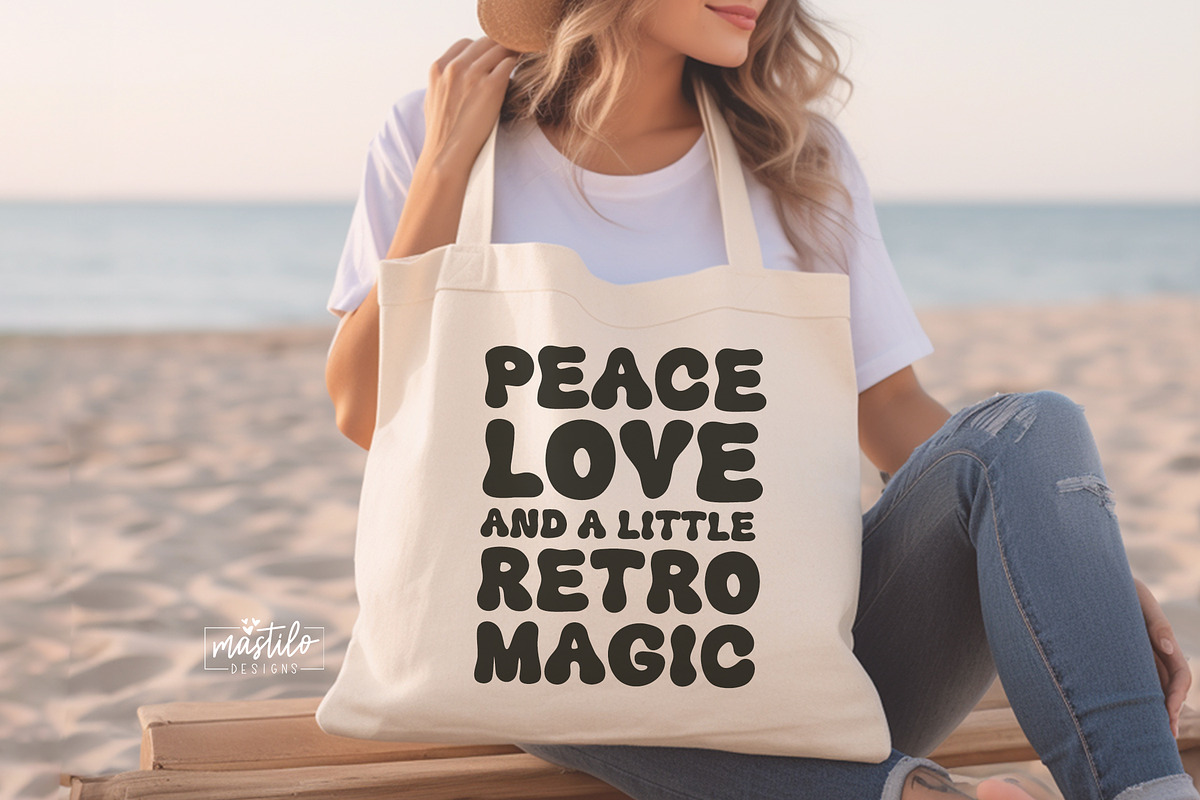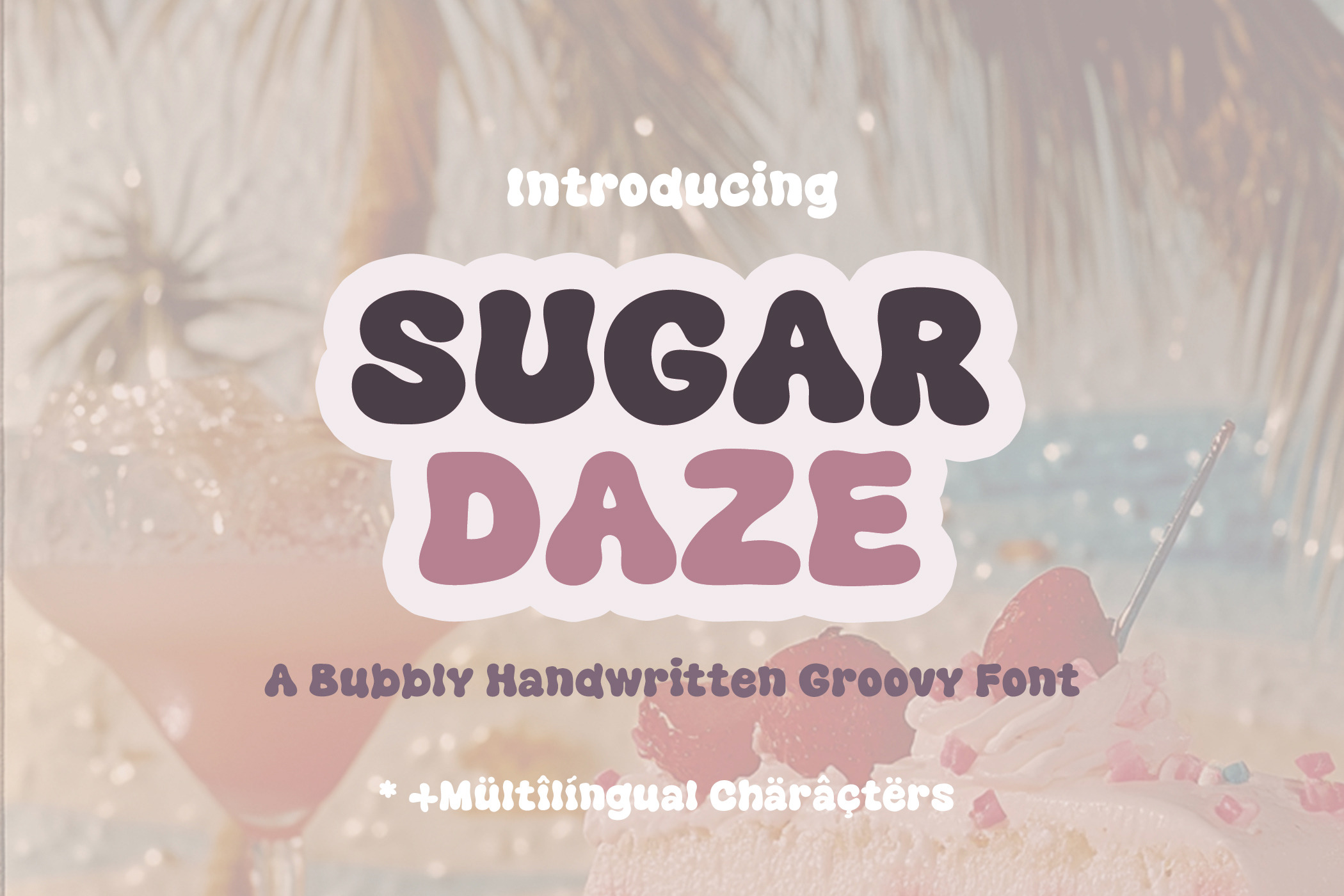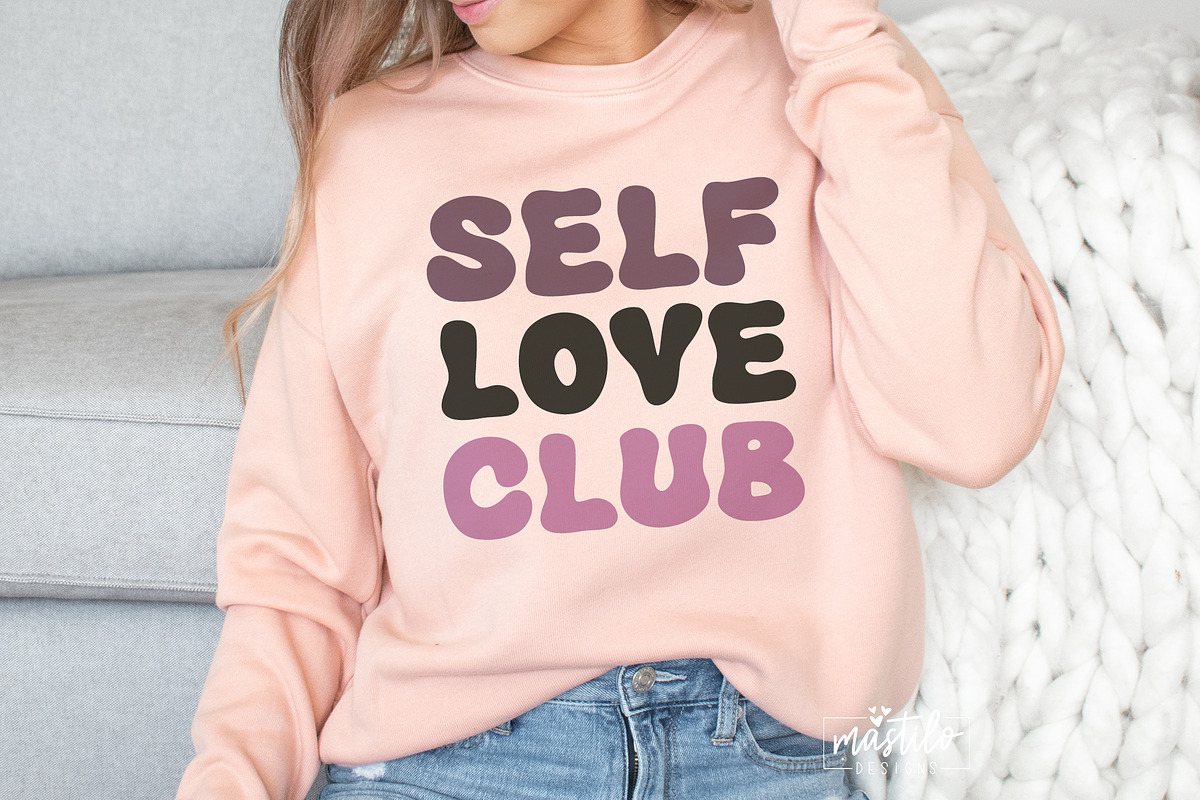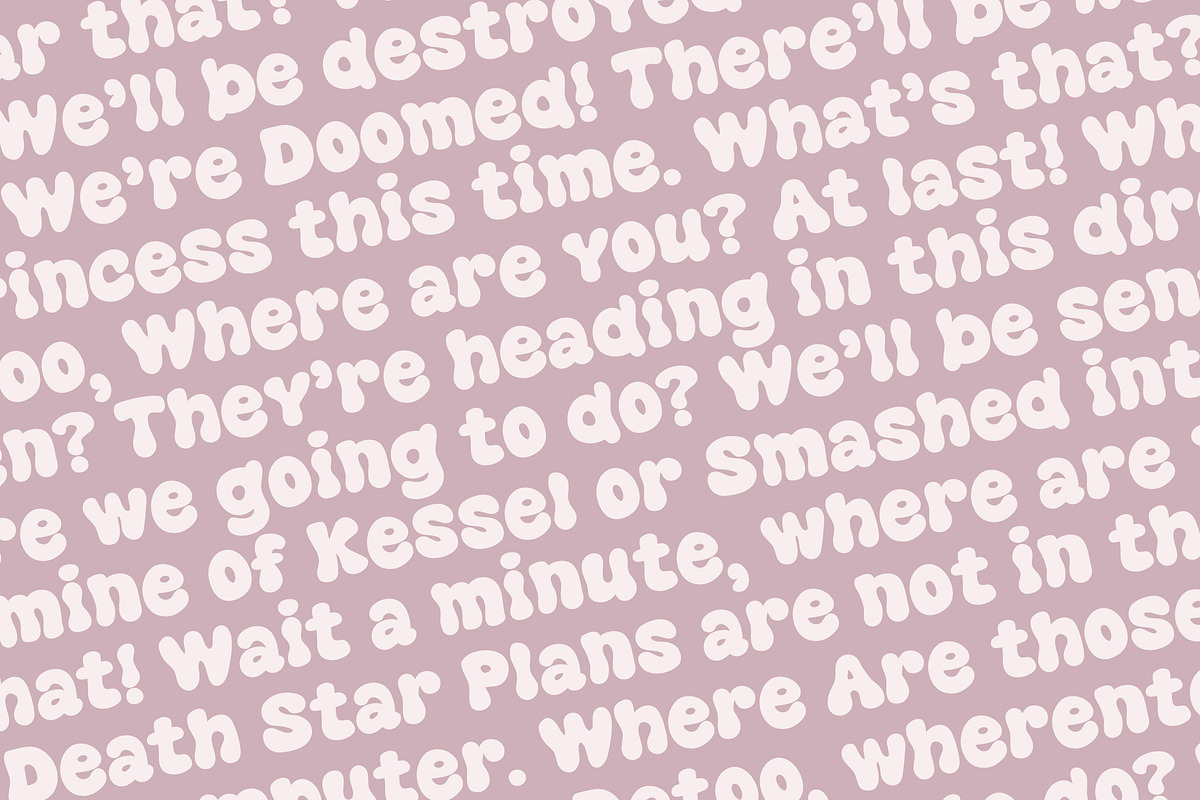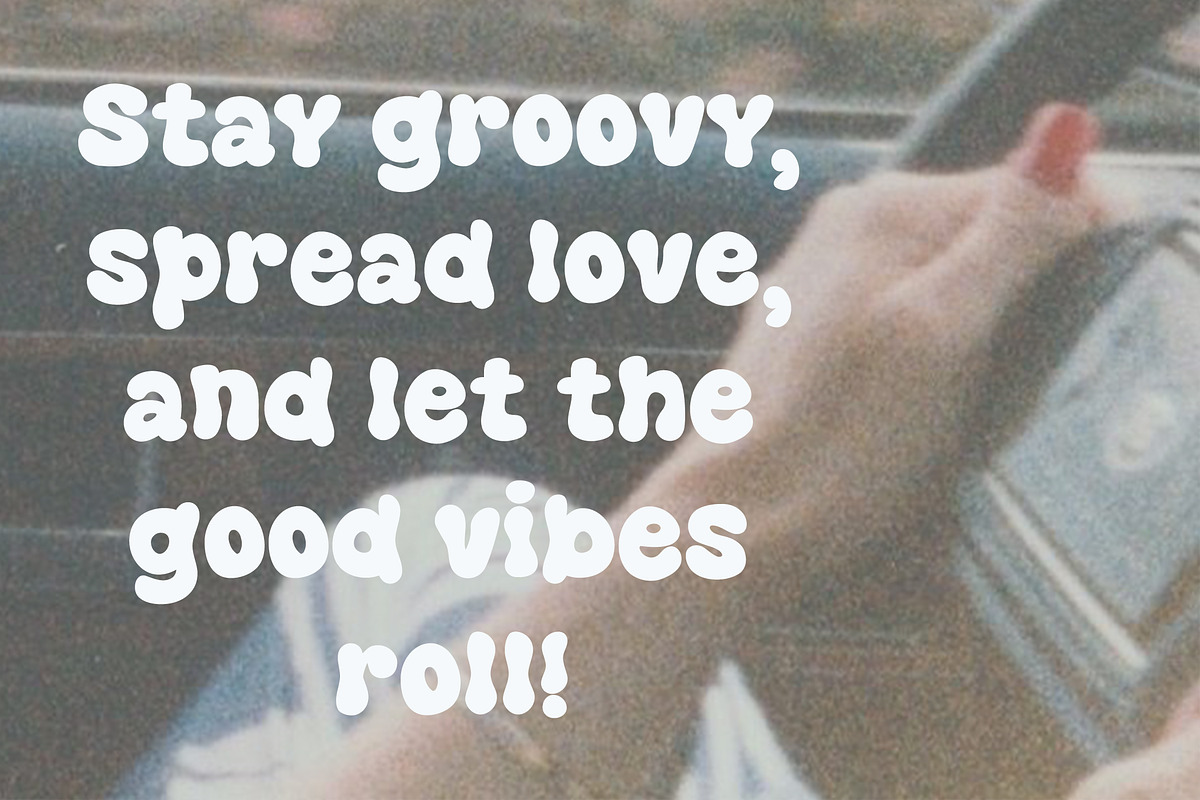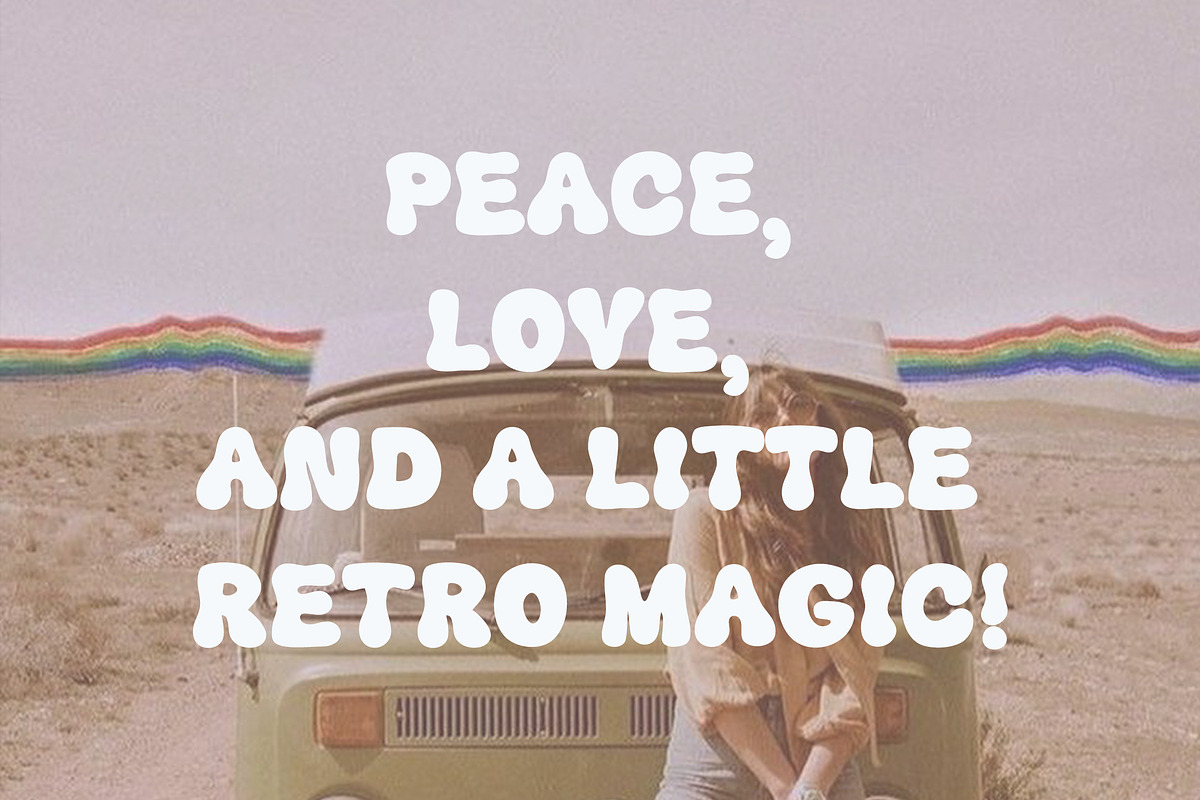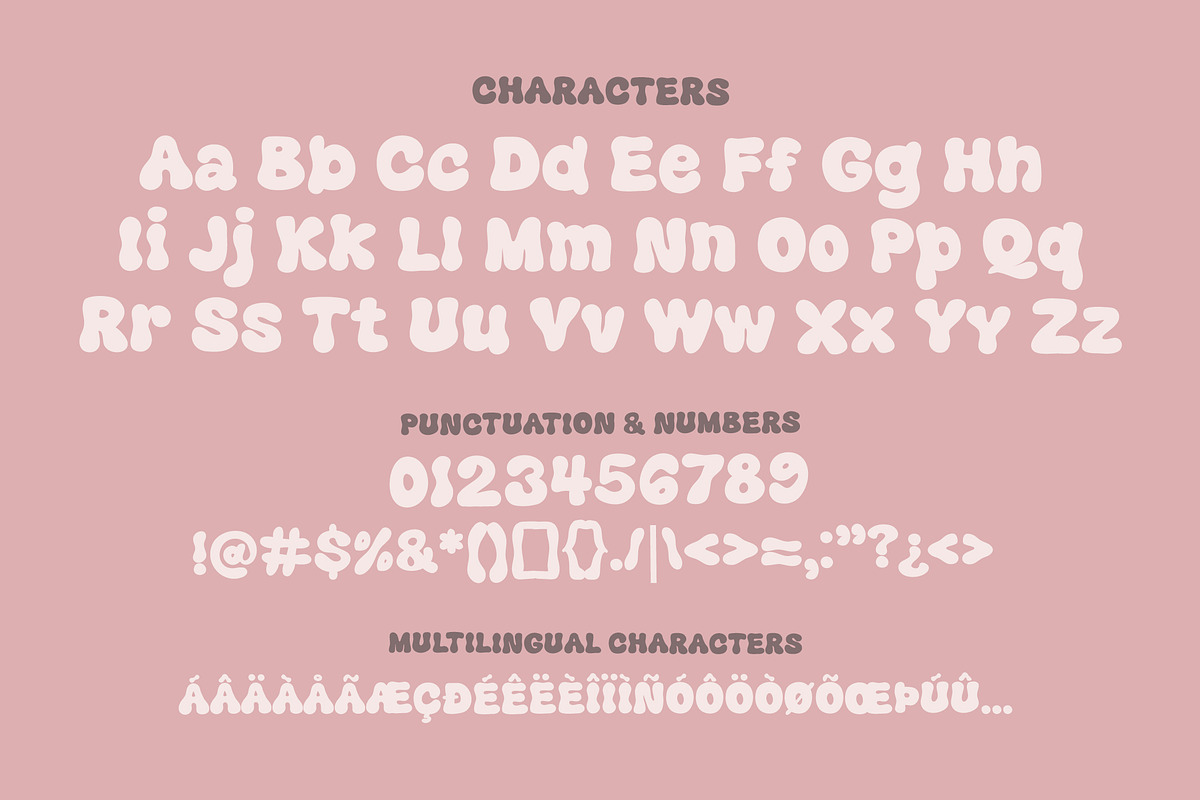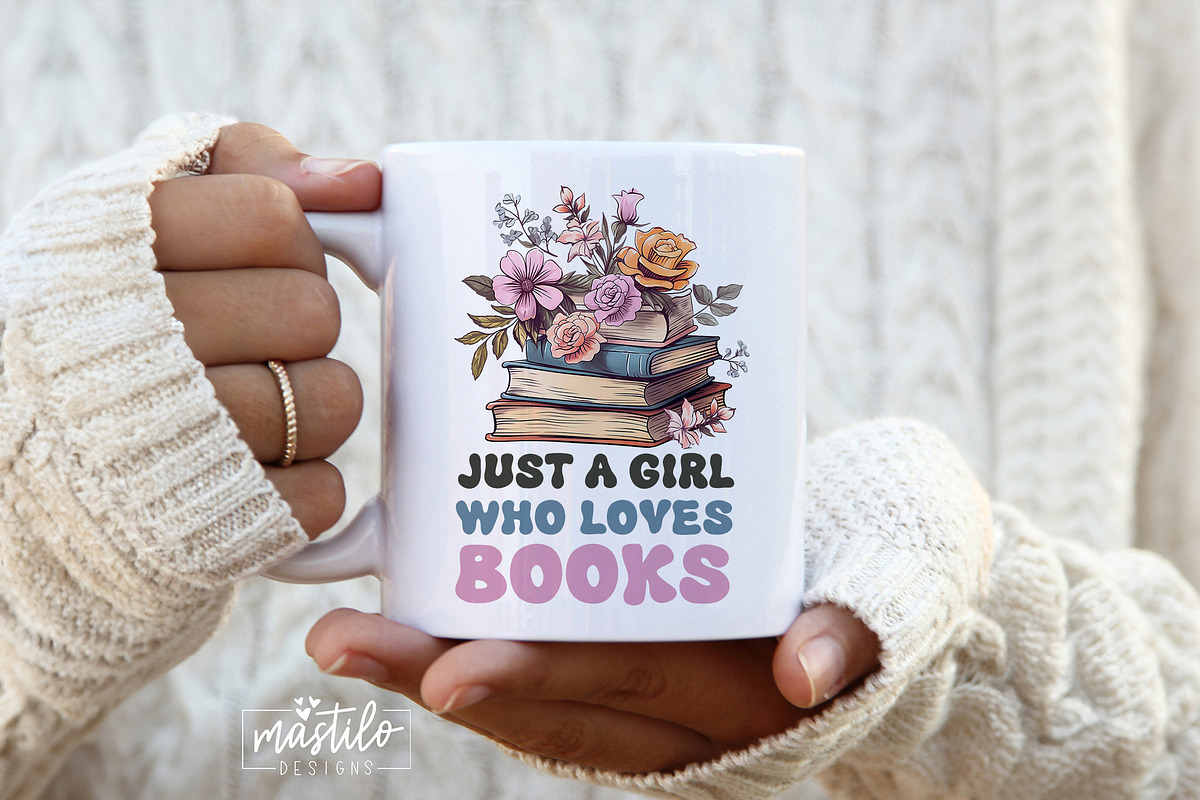
Sugar Daze Groovy Retro Bubble Font
Introducing Sugar Daze, a hand-drawn retro groovy bubble font. A versatile font, with possibilities for use for all your projects. With the possibilities to change the Uppercase strokes to different colors it makes a great craft font for all your projects.
SUGAR DAZE font is perfect for:
logos + branding creating retro shirt designs and other apparel stickers, phone cases, home decor social media templates and instagram quotes cricuit and silhouette projects procreate and so much more
SUGAR DAZE includes:
~ full upper + lowercase characters ~ numbers + basic punctuation ~ Multilingual Characters